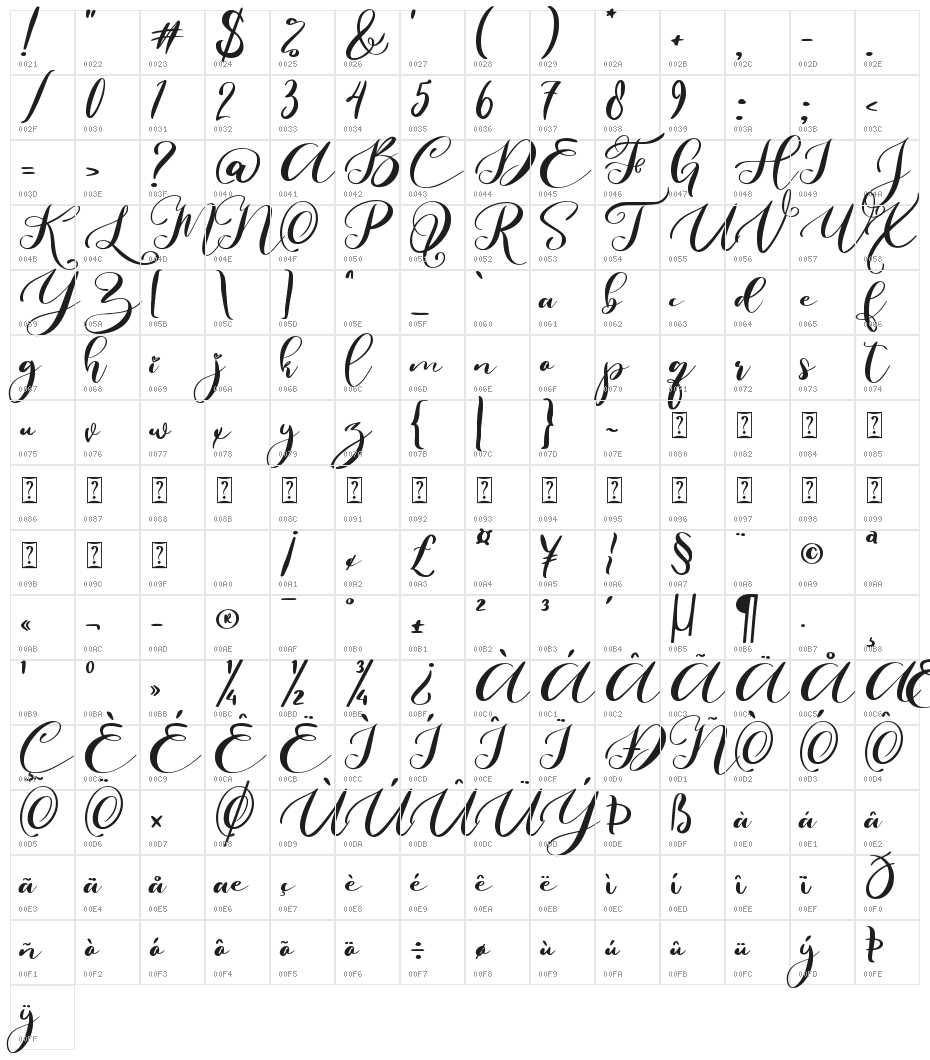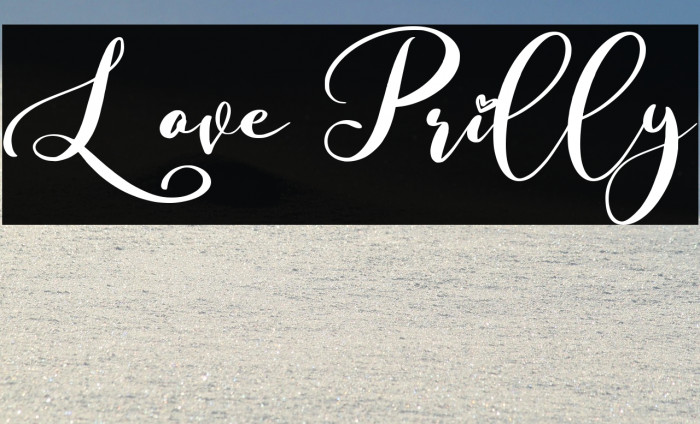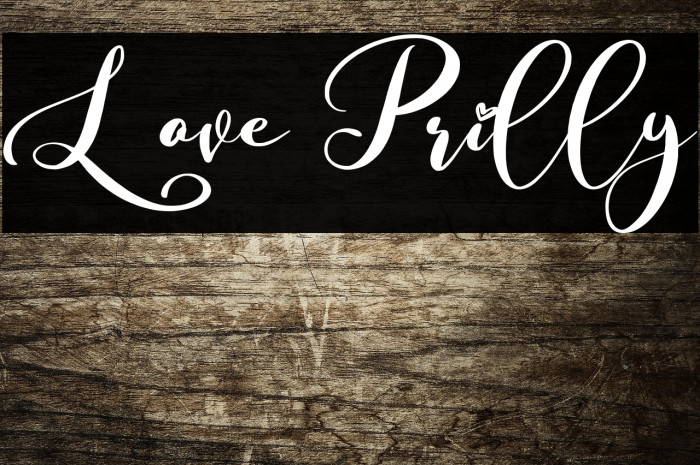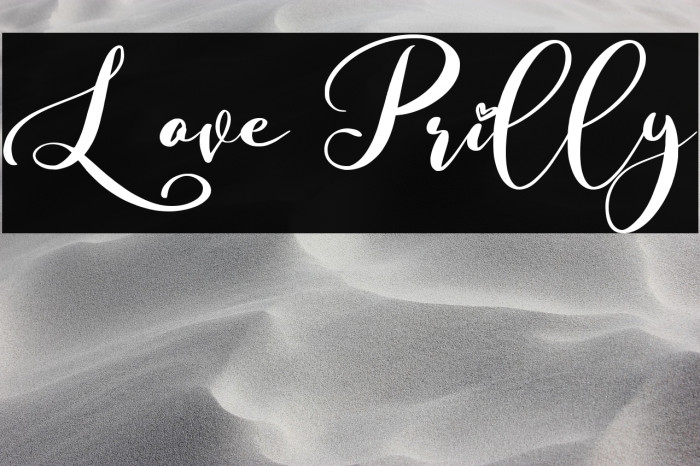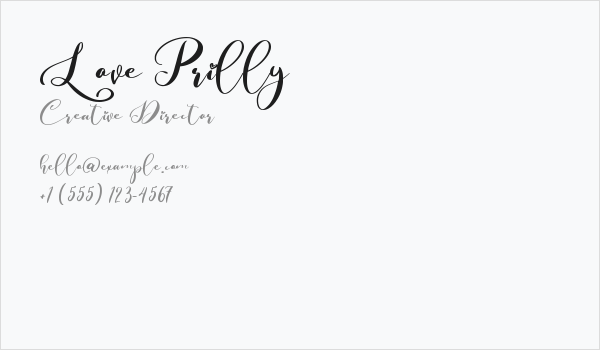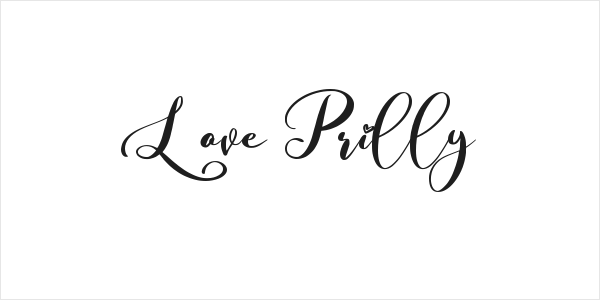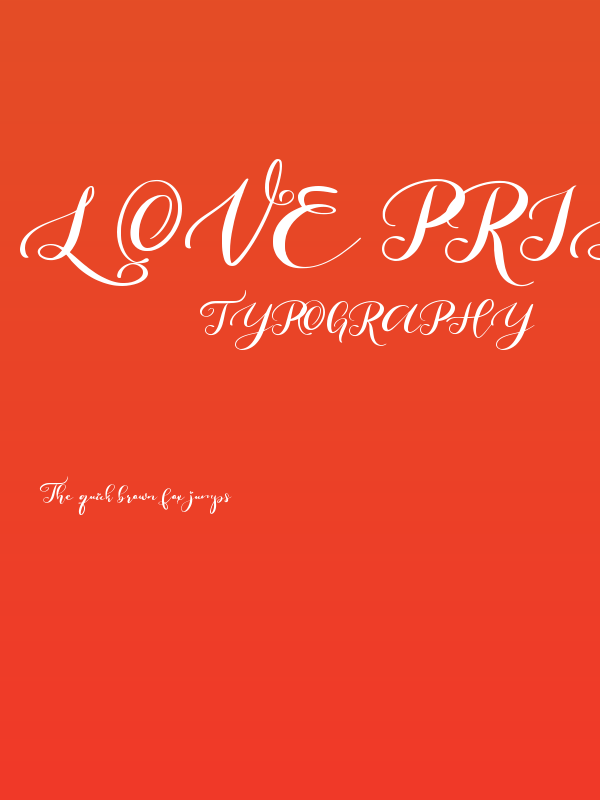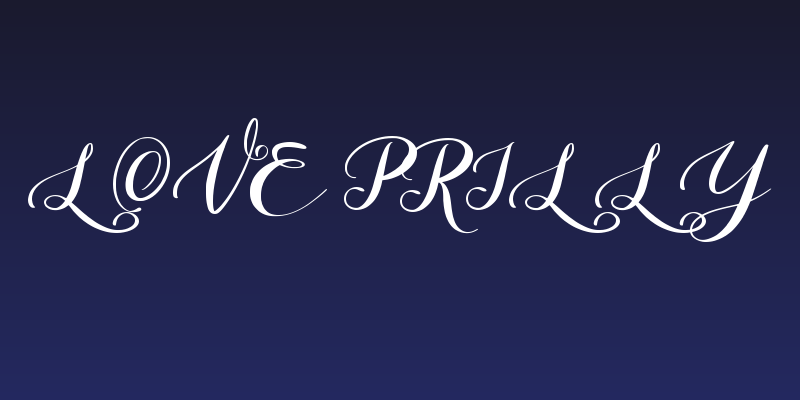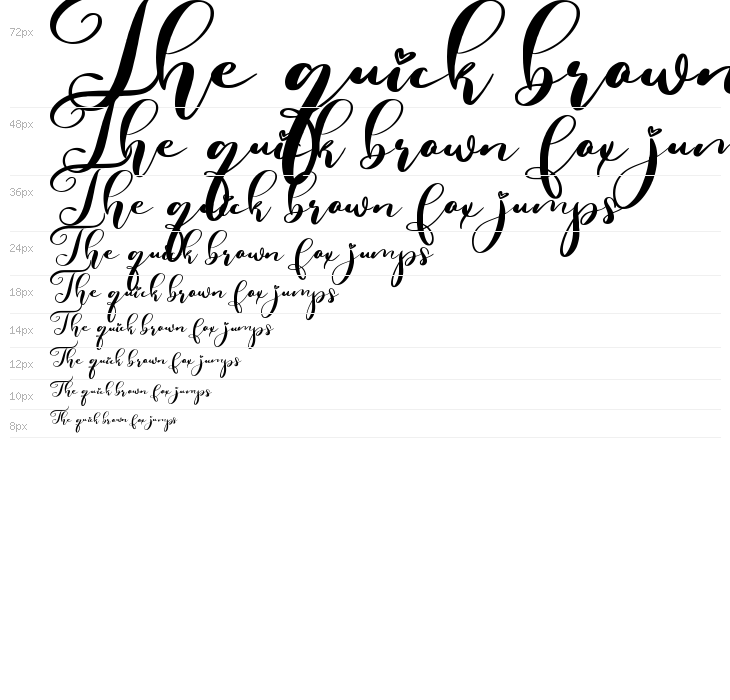
Love Prilly Font
Love Prilly Description
This elegant script font features a flowing, cursive style with intricate loops and swashes, giving it a romantic and sophisticated appearance. The uppercase letters are ornate, with flourishes that extend beyond the baseline, while the lowercase letters maintain a consistent, flowing rhythm. The numerals are stylish and maintain the same cursive flair, making them suitable for decorative purposes. Special characters are equally ornate, complementing the overall aesthetic. The font's design is perfect for projects that require a touch of elegance and sophistication.